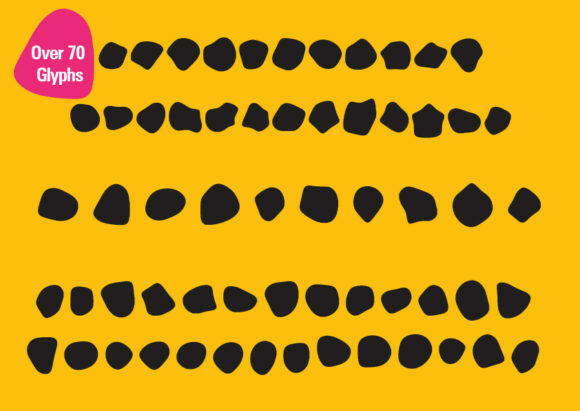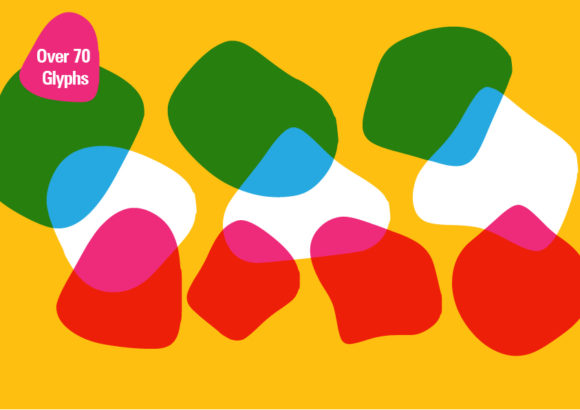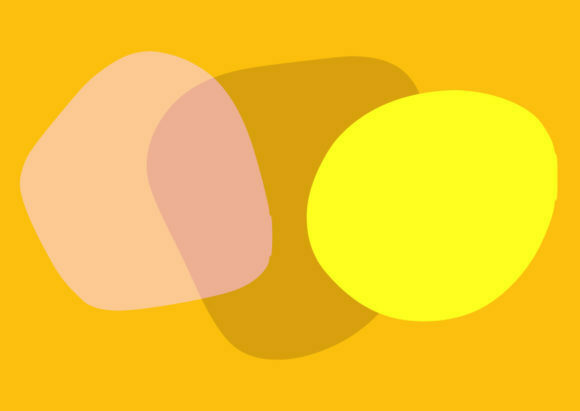
Random Blobs 1 Font
About Random Blobs 1 Font
Random Blobs 1 sounds like an exciting set of shape glyphs that can bring a unique and artistic touch to your crafting projects. With these blobs, you have the freedom to create abstract patterns, backgrounds, and decorative elements that are sure to catch the eye. Here are some ways you can use Random Blobs 1 to enhance your upcoming crafting projects:
1. Artistic Backgrounds: Use the shape glyphs from Random Blobs 1 to create captivating backgrounds for your artwork. Arrange and layer the blobs to form interesting patterns and textures. Experiment with different colors and opacities to achieve the desired effect. These blobs can be particularly effective in abstract paintings, mixed media art, or digital illustrations.
2. Scrapbooking: Incorporate the shape glyphs as decorative elements in your scrapbooking projects. Whether you’re creating a layout for a special occasion, a travel diary, or a memory book, the blobs can add a fun and artistic touch. Use them as borders, frames, or embellishments to highlight photos, journaling, or other elements on your pages.
3. Card Making: Make your handmade cards stand out with the addition of shape glyphs from Random Blobs 1. Create unique and abstract designs by combining the blobs with other decorative elements, such as stamps, stickers, or die cuts. These blobs can serve as focal points or background elements to add visual interest and intrigue to your cards.
4. DIY Home Decor: Incorporate the shape glyphs into your DIY home decor projects. Use them to create stencils or templates for painting, wall art, or decorative accents. With their organic and abstract shapes, the blobs can bring a contemporary and artistic vibe to your living space.
5. Fabric Printing and Embroidery: Transfer the shape glyphs onto fabric to create custom patterns for printing or embroidery projects. Whether you’re making unique garments, tote bags, or decorative textiles, the blobs can add a touch of originality and creativity. Use fabric paints, screen printing, or embroidery techniques to bring these shapes to life on your fabric creations.
Remember to play around with different sizes, orientations, and combinations of the shape glyphs to achieve the desired effect. Let your creativity flow and have fun exploring the endless possibilities that Random Blobs 1 offers for your crafting projects.